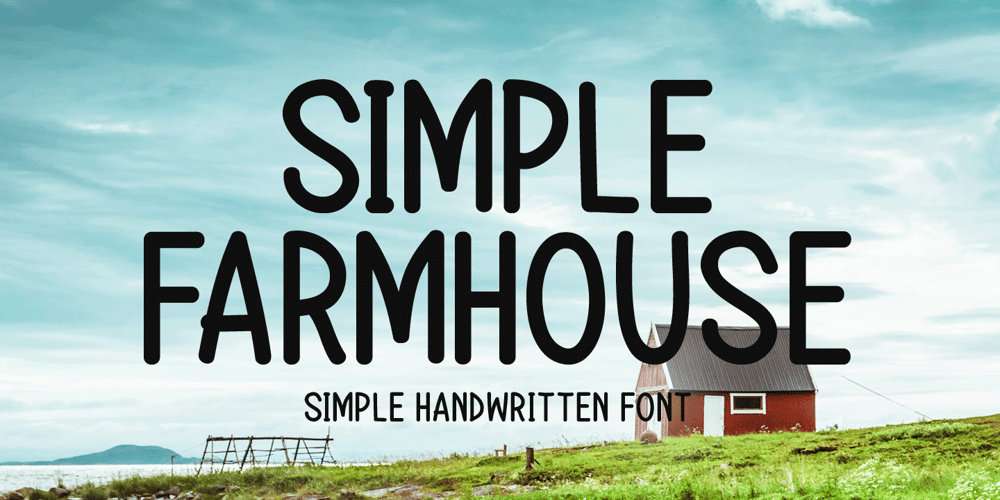
Simple Farmhouse
Simple Farmhouse font
Simple Farmhouse Font Family was designed by Md Shohail Bhuian and published by Seemly Fonts. Simple Farmhouse contains 1 styles and family package options. Sunny Days is a simple and friendly handwritten font, featuring the perfect amount of trendiness. This original look will appeal to a wide range of crafty ideas, from letterheads and titles to stationery.